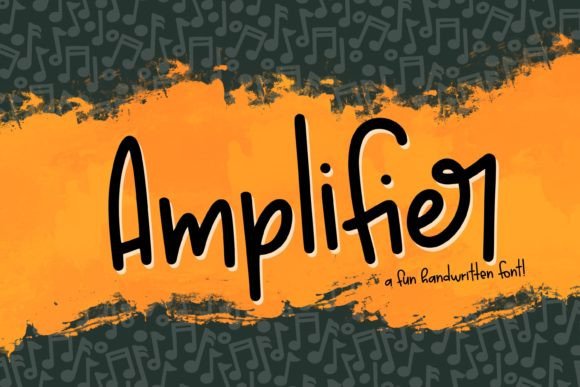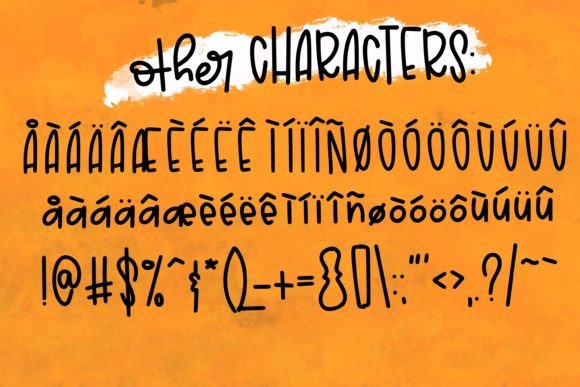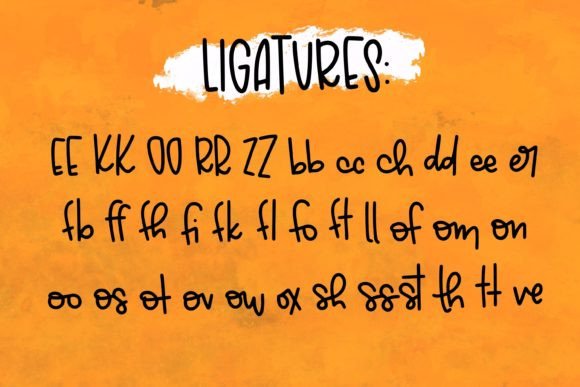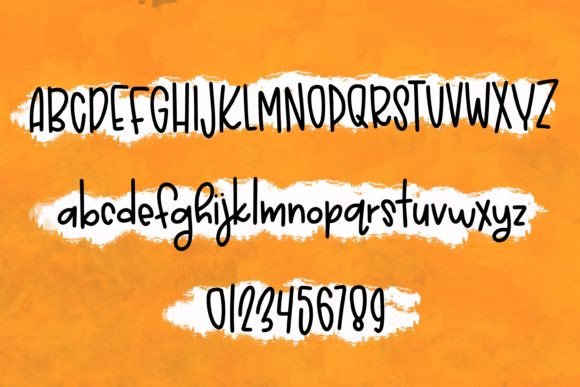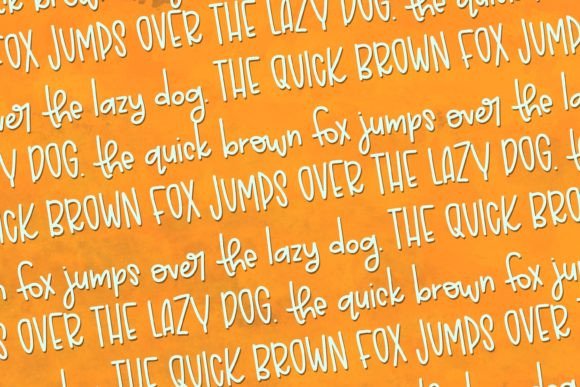
Amplifier Font
About Amplifier Font
Introducing the “Amplifier Font” – a fun and unique typeface designed to bring a playful and distinctive character to your creative projects. Packed with ligatures, this font is not only perfect for cutting on your laser or vinyl cutter but also easy to print out, making it a versatile choice for a wide range of applications. With its playful charm, the Amplifier Font is guaranteed to add personality to your next project!
The Amplifier Font’s playful character makes it an ideal choice for projects that demand a touch of fun and uniqueness. Whether you’re working on crafting, cutting for vinyl or laser, or any design that requires a lively and distinctive typography, this font adds a playful and creative flair.
The inclusion of ligatures in the Amplifier Font enhances its versatility, providing you with creative options to experiment with different letter combinations. This feature makes the font especially suitable for cutting applications, allowing you to achieve dynamic and visually appealing results on various surfaces.
For printing projects, the Amplifier Font stands out with its playful and energetic style. Its unique character ensures that your text becomes a focal point, making your creative endeavors more visually interesting and engaging.
Whether you’re crafting, cutting, or printing, the Amplifier Font is designed to be a go-to choice for injecting fun and personality into your projects. Its versatility and unique charm make it a valuable tool for a range of creative applications.
In summary, if you’re on the lookout for something fun and unique, let the Amplifier Font be your creative companion. Whether you’re crafting, cutting, or printing, this font is sure to add a playful and distinctive touch to your projects, making them stand out with personality and charm.